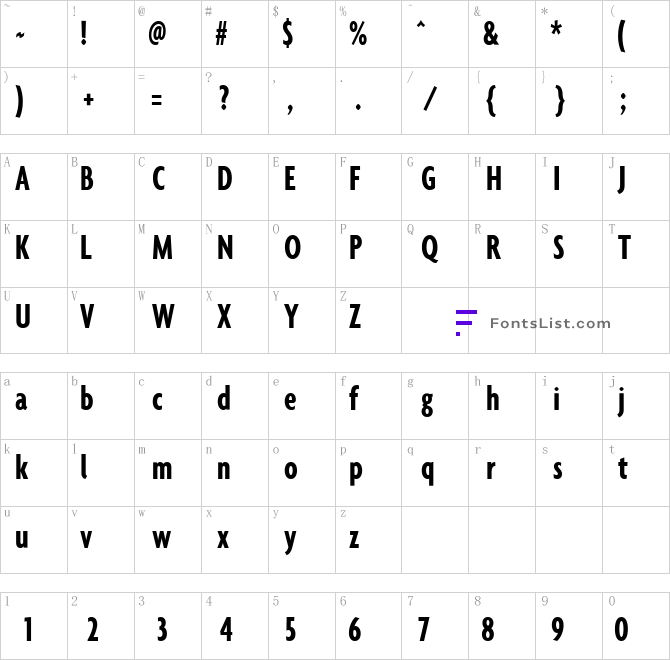
Agenda-BoldExtraCondensed-copy-1-.ttf is a very beautiful artistic font, Agenda-BoldExtraCondensed-copy-1-.ttf is widely used in the design and printing of various books and pictures,Agenda-BoldExtraCondensed-copy-1-.ttf has a strong visual impact,Agenda-BoldExtraCondensed-copy-1-.ttf is a commonly used font in newspapers, magazines and books, and is used in posters, e-commerce Poster design, store design, logo design, font design and other fields.Agenda-BoldExtraCondensed-copy-1-.